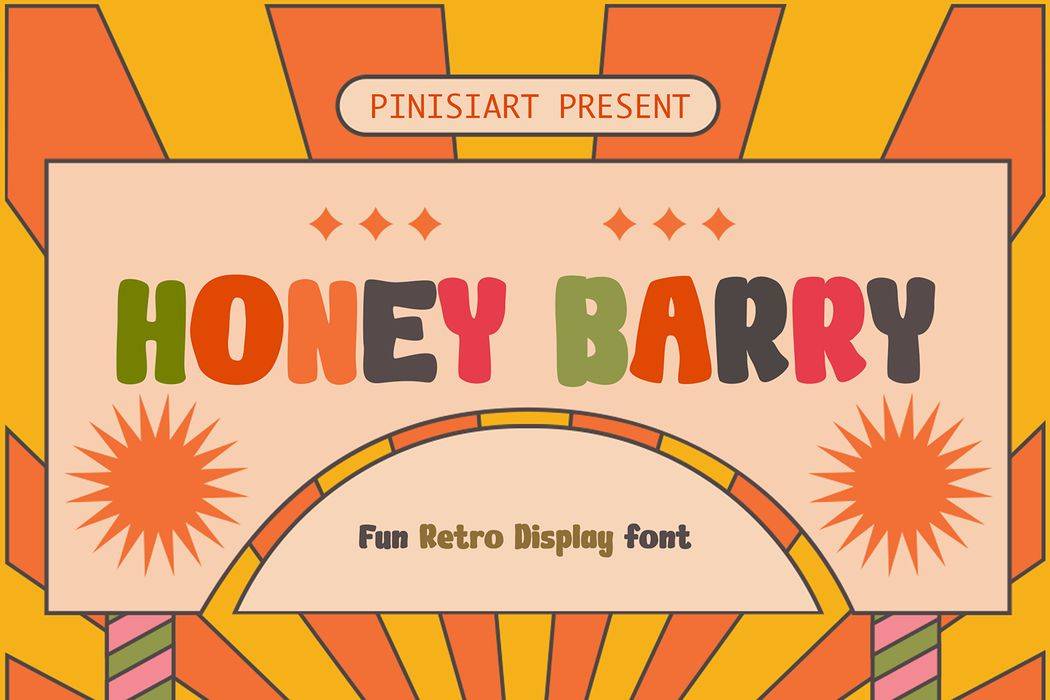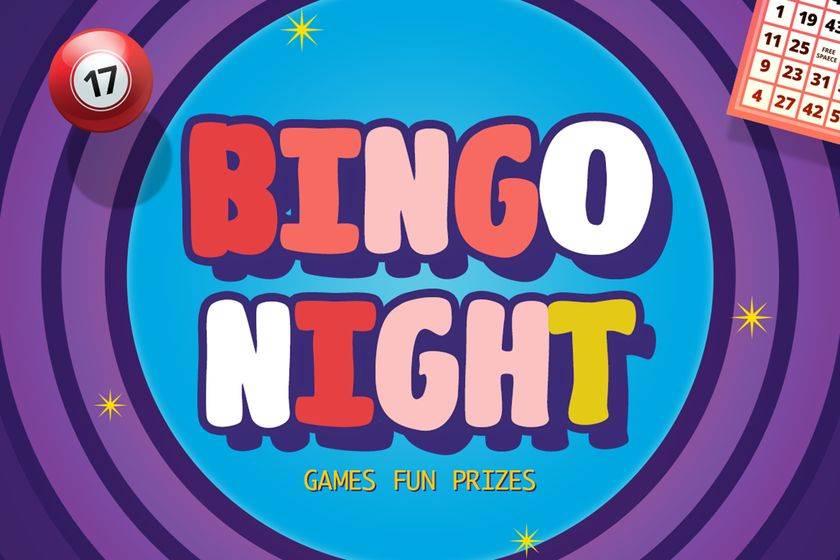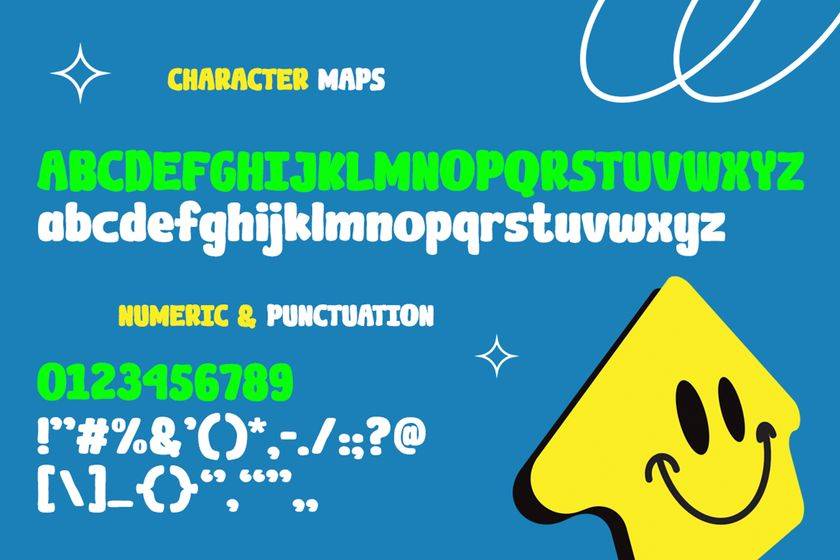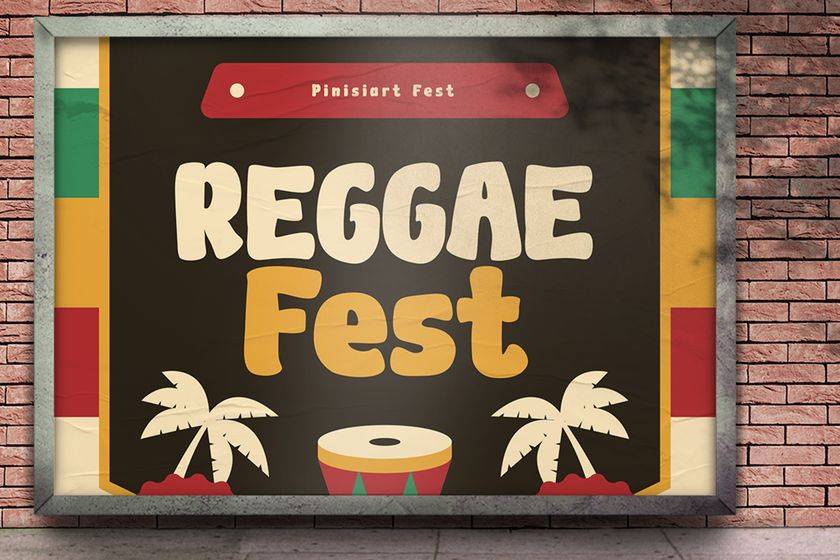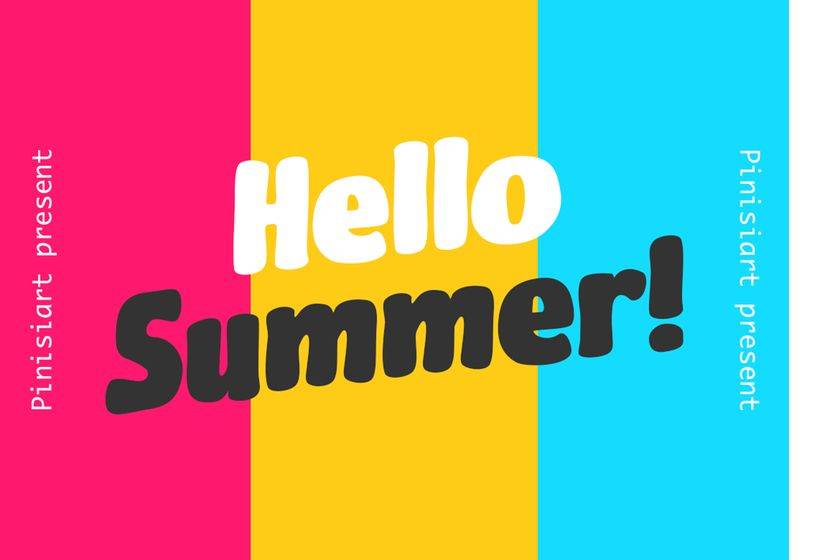
Honey Barry is a bold, rounded sans serif font with a playful and friendly vibe. Its thick, soft letterforms and slightly condensed width make it perfect for casual and fun designs like children's books, branding, and headlines that need a cheerful, approachable touch. This font works well where a warm, inviting feel is desired without sacrificing readability.
Honey Barry Font
About Honey Barry Font
| Font family | Honey Barry Font |
| Designer | PINISIART Team |